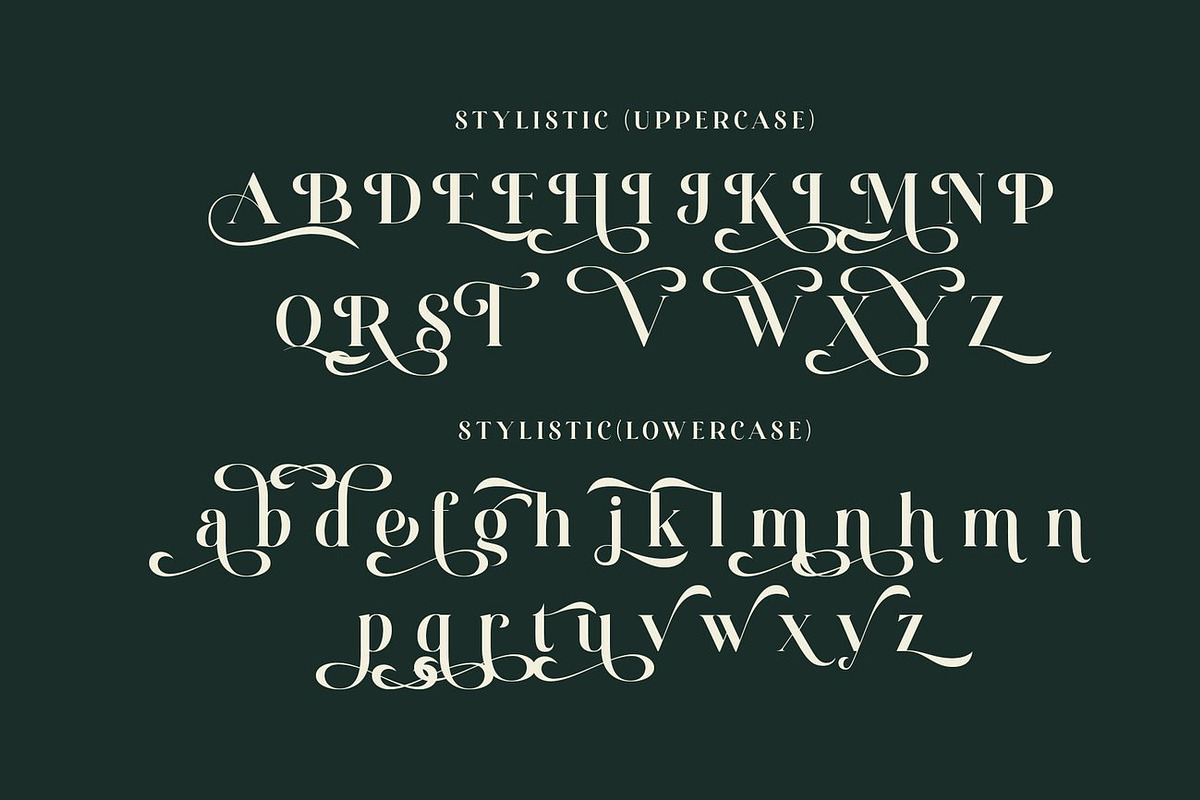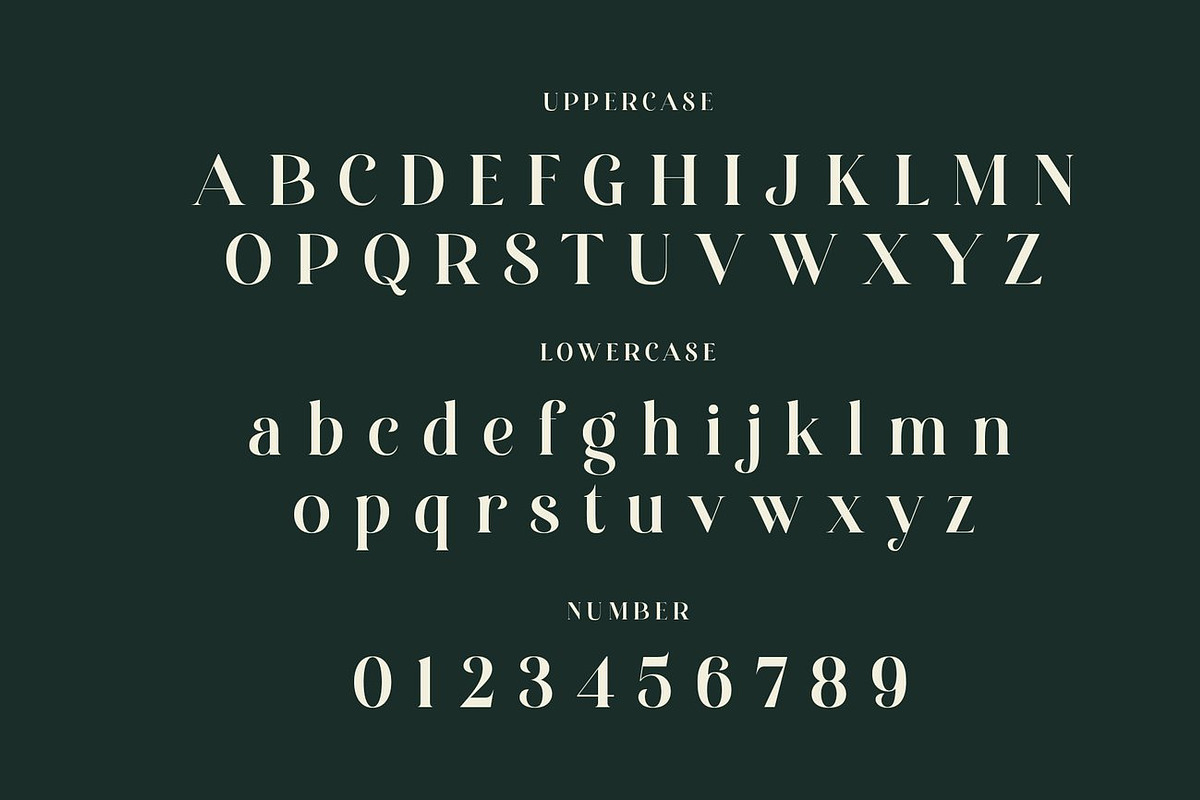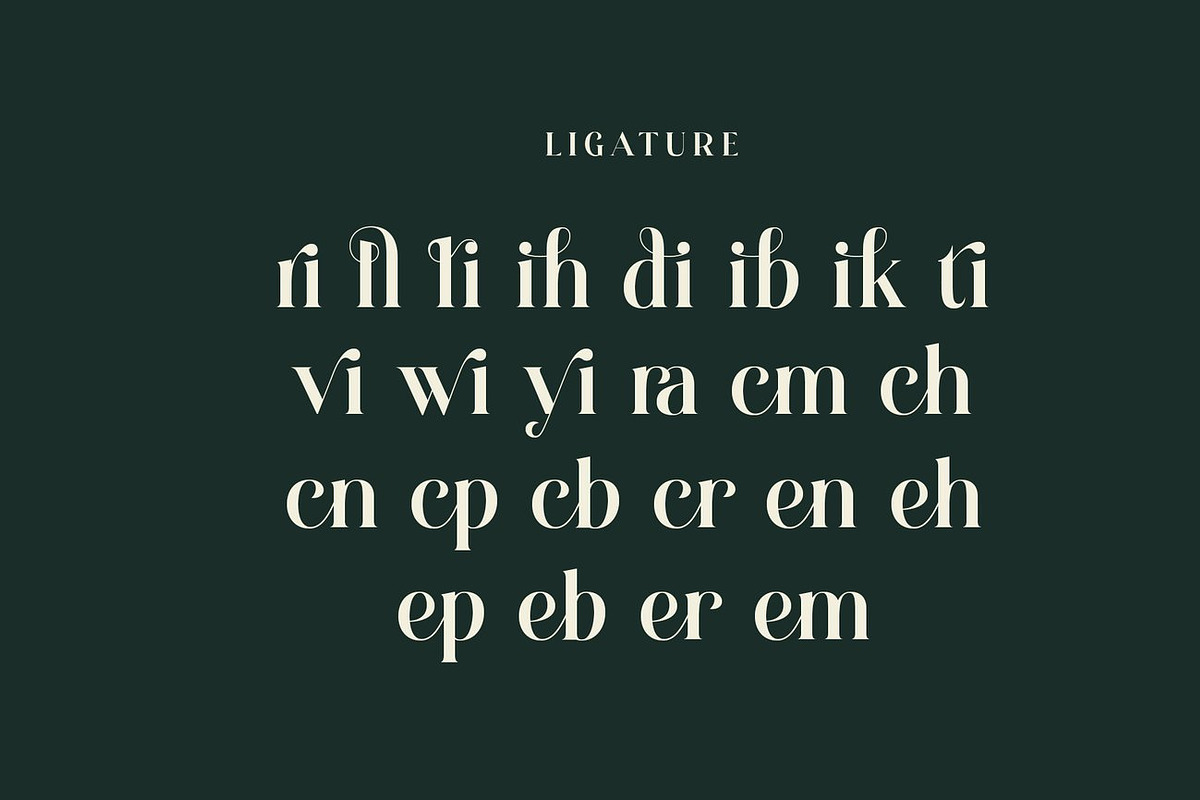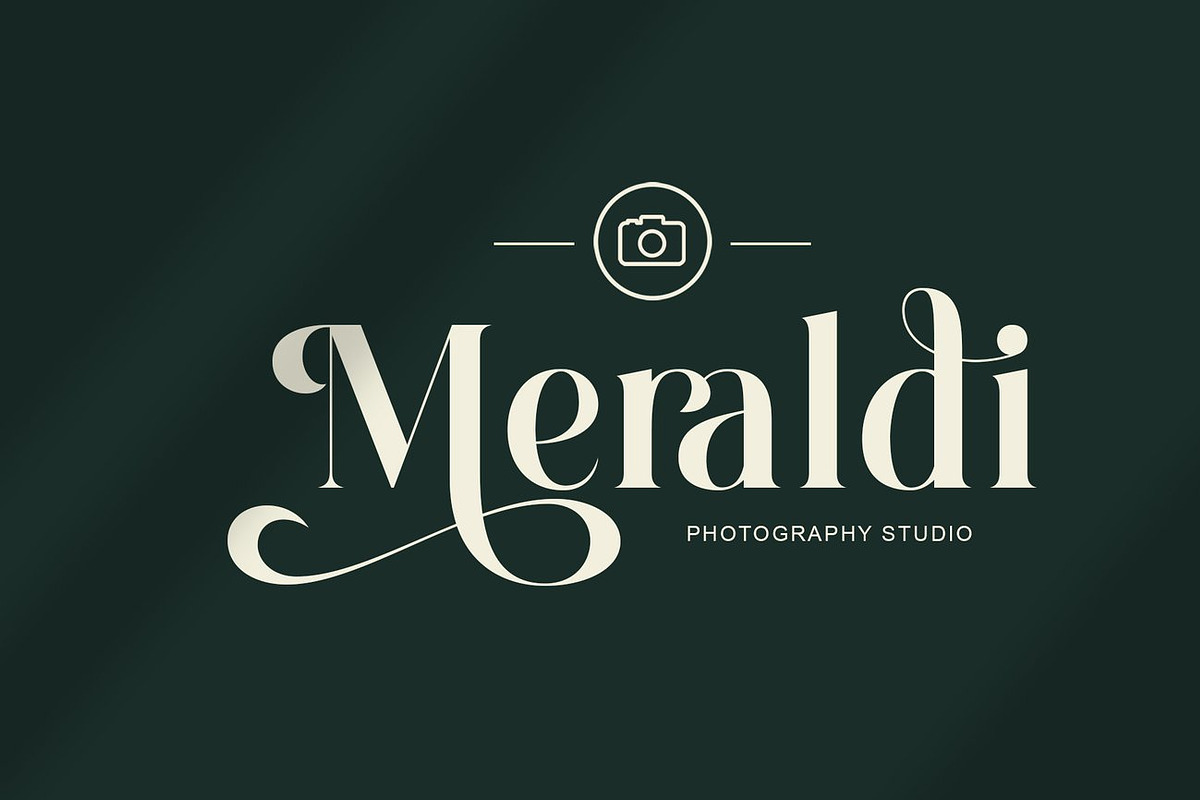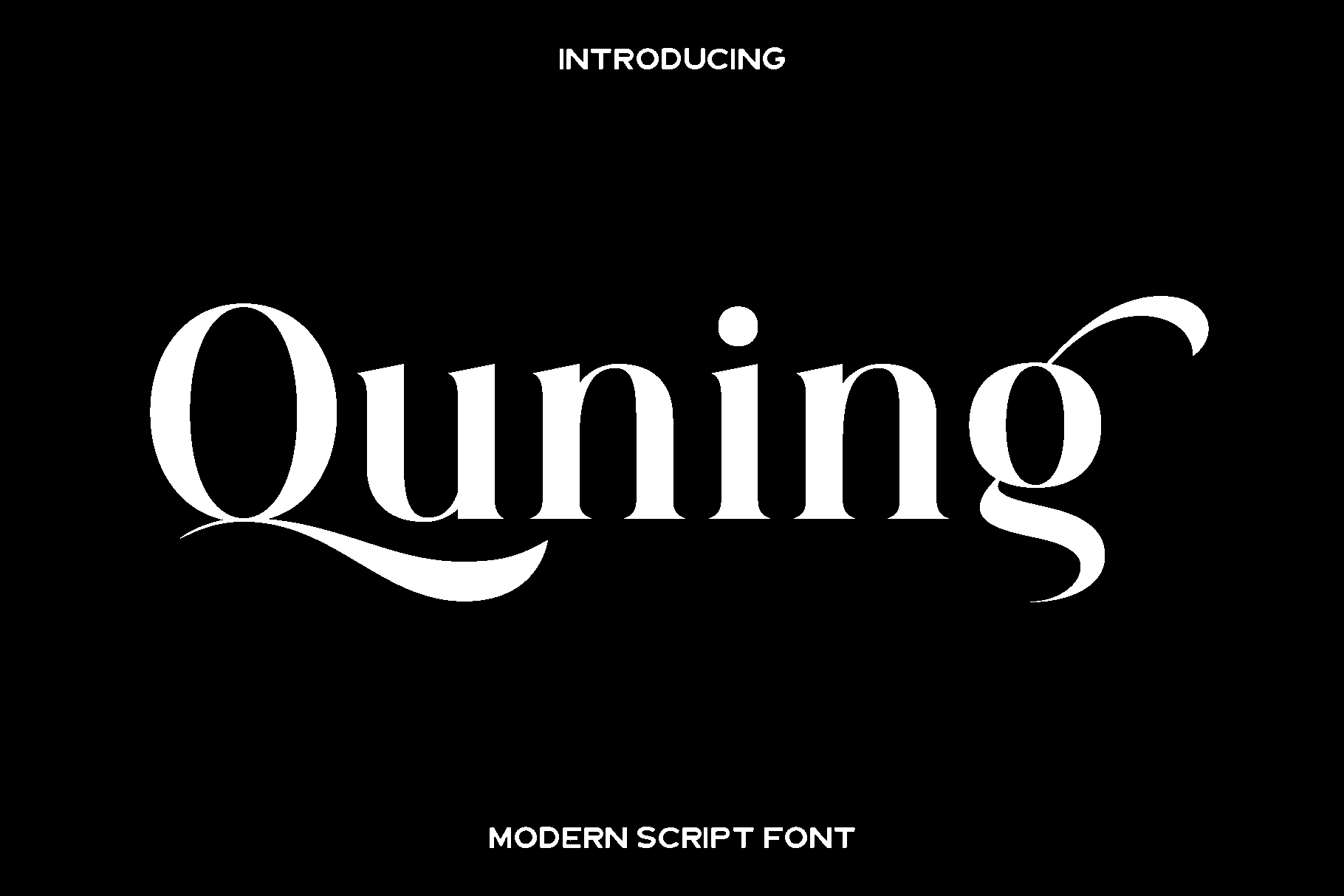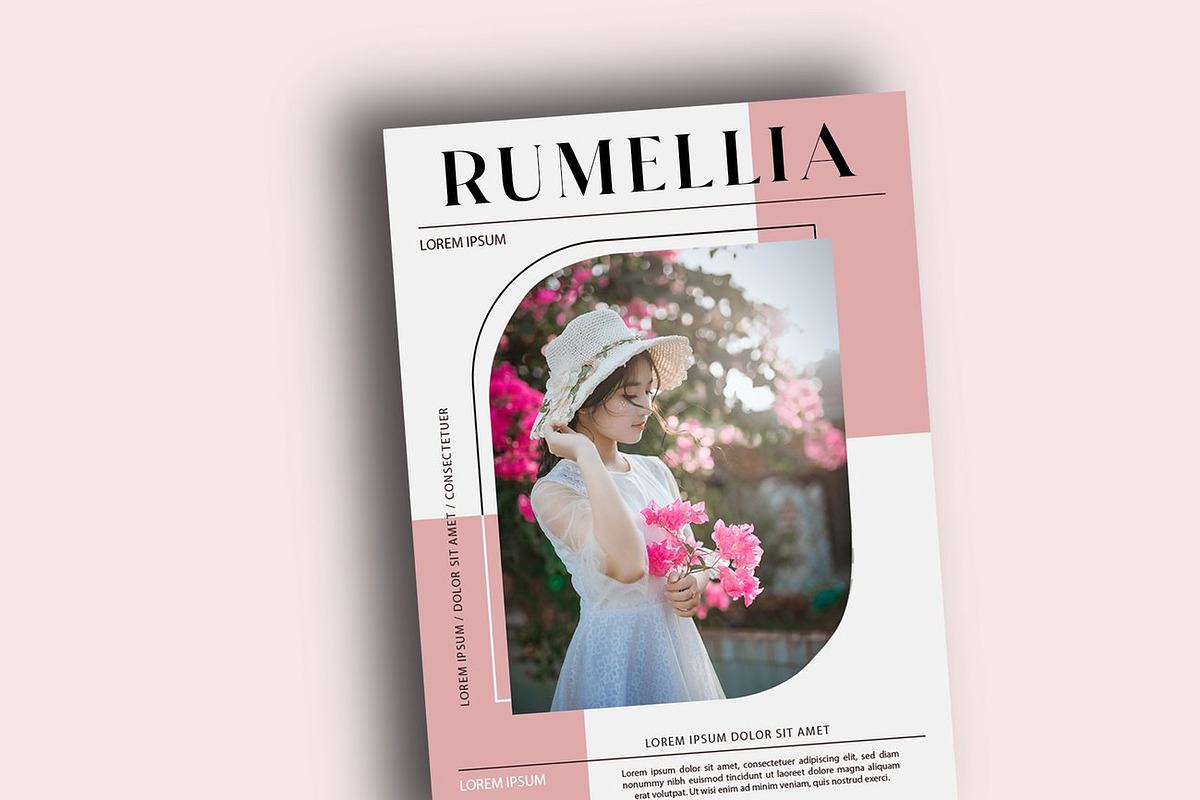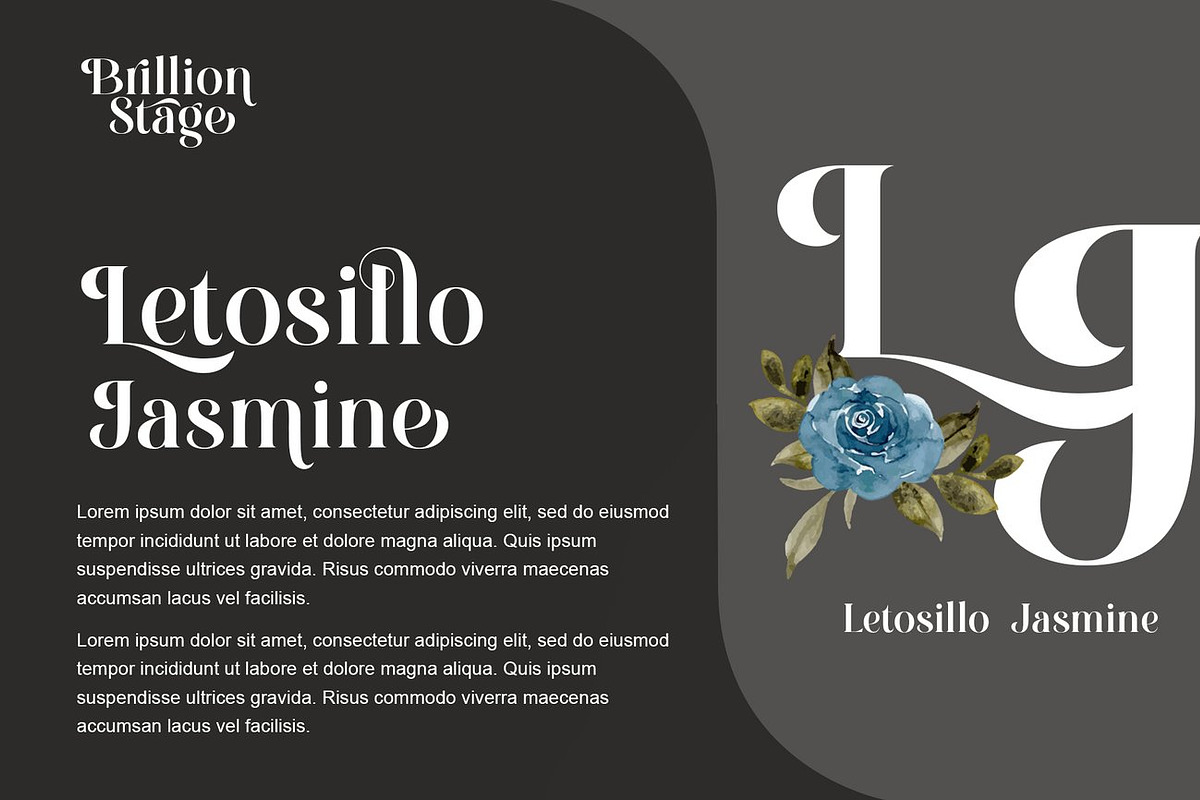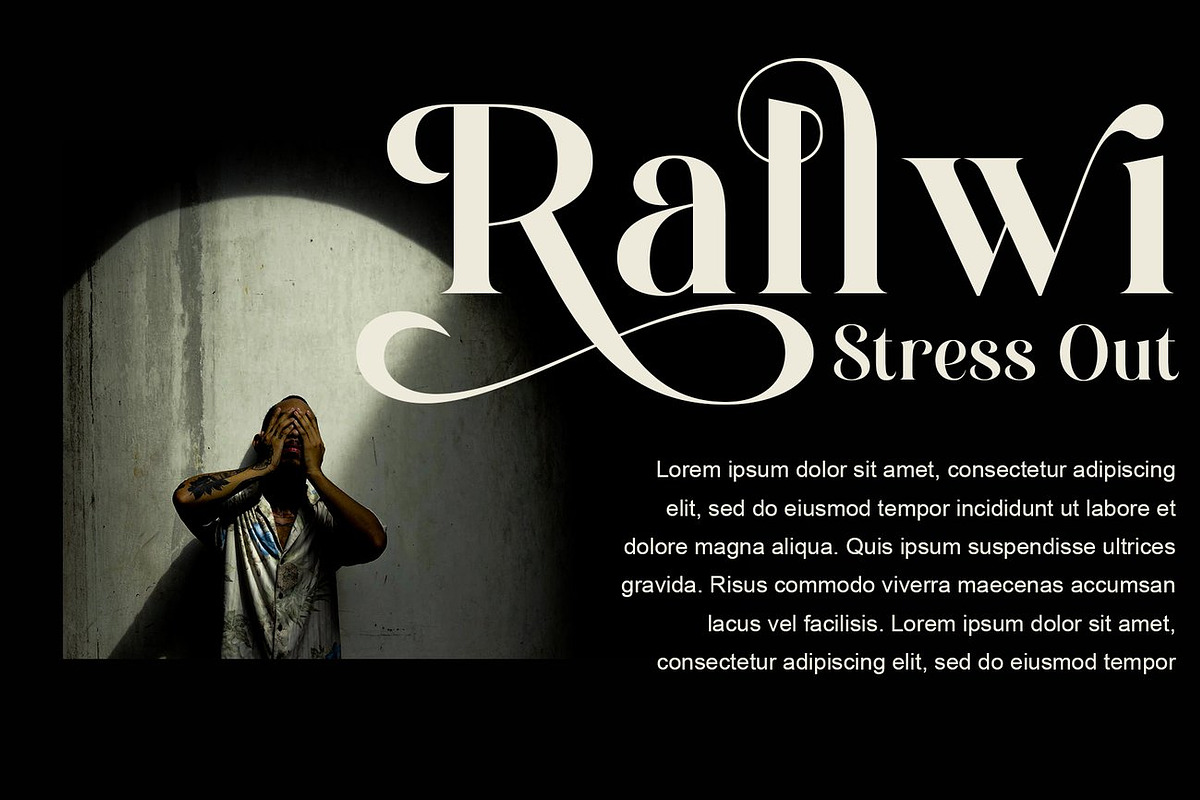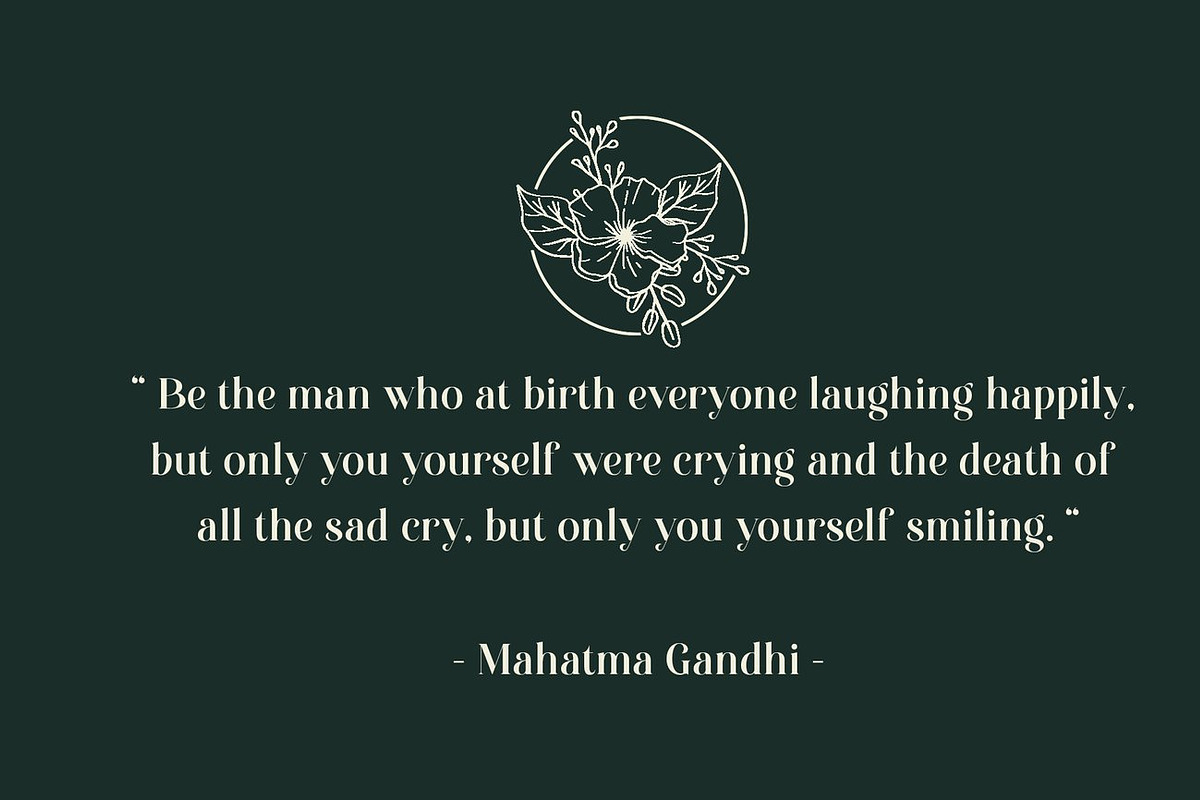
Quning - Elegant Serif Font
Quning is a serif display font created to express timeless beauty, feminine charm, and refined elegance. Inspired by classic typography and graceful design aesthetics, Quning features softly sculpted serifs and balanced letterforms that feel romantic, stylish, and sophisticated. Every character is thoughtfully crafted to deliver a smooth and elegant rhythm, making your typography feel personal and luxurious.
This font shines in projects where elegance and emotion matter most. Quning is perfect for logos and branding, wedding invitations, stationery, fashion and beauty packaging, product labels, advertisements, social media posts, printed quotes, photography watermarks, and special event designs. Its classic yet gentle personality allows it to adapt beautifully to both modern and traditional layouts, creating a warm and memorable visual impression.
Quning feels graceful, calm, and confident. It enhances your designs with a subtle luxury that never feels overwhelming, making it ideal for creatives who want to communicate beauty, femininity, and sophistication through typography. Whether used for headlines or decorative text, Quning elevates every project with its elegant presence.
Quning Serif Display Font Features:
• Uppercase and lowercase characters
• Numerals and functional glyphs
• Stylistic and alternate characters
• Ligatures and multilingual support
• OpenType features